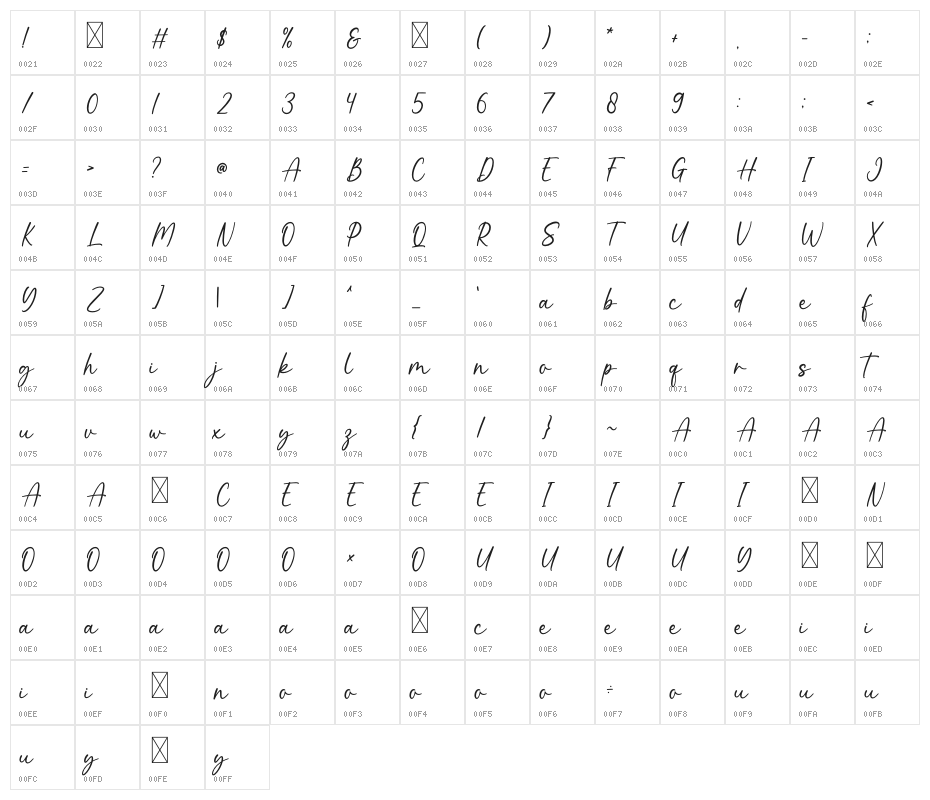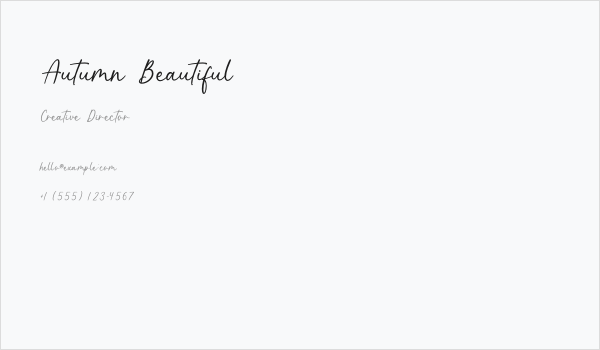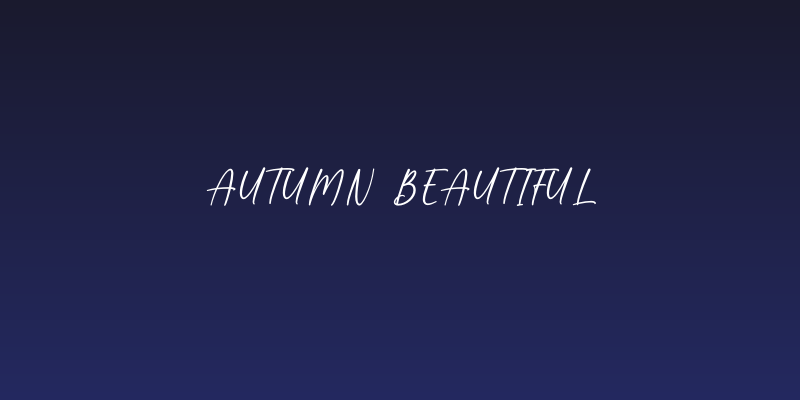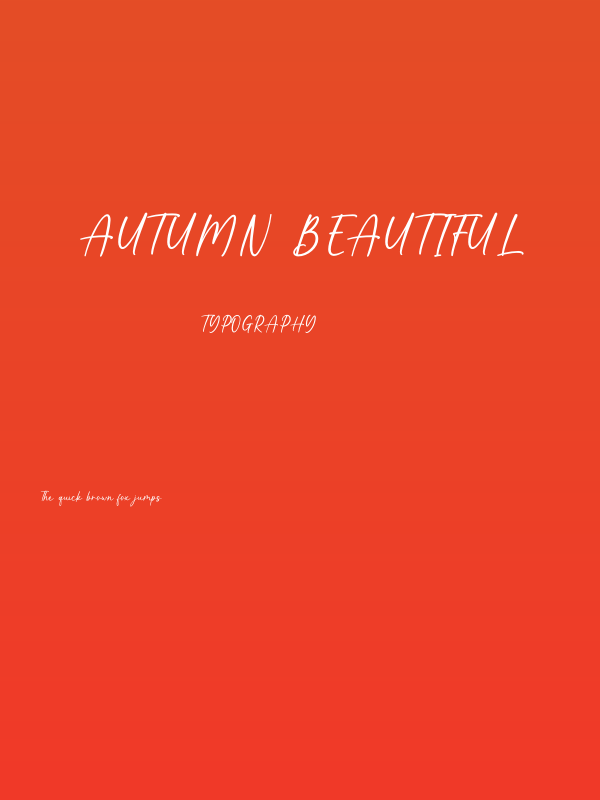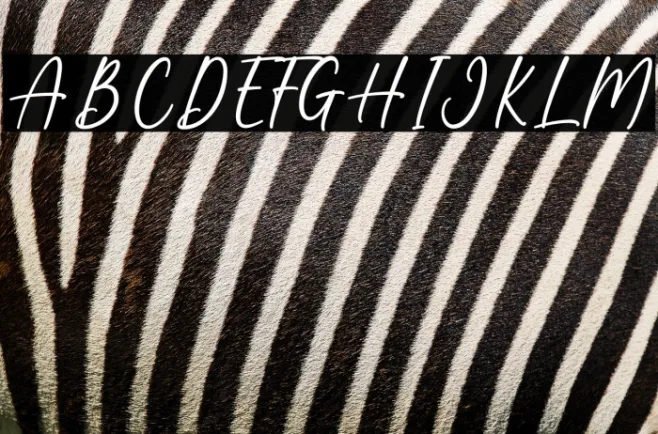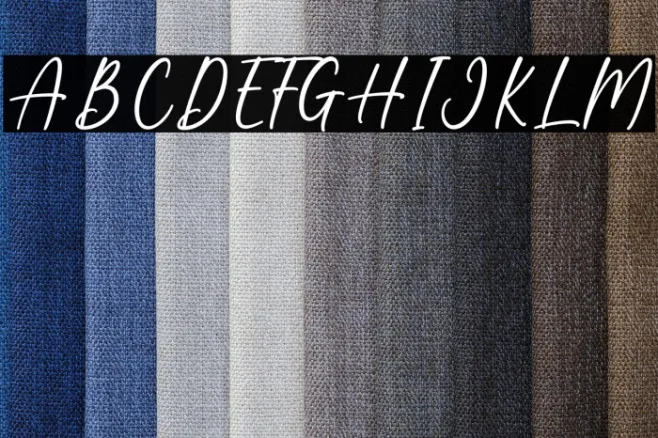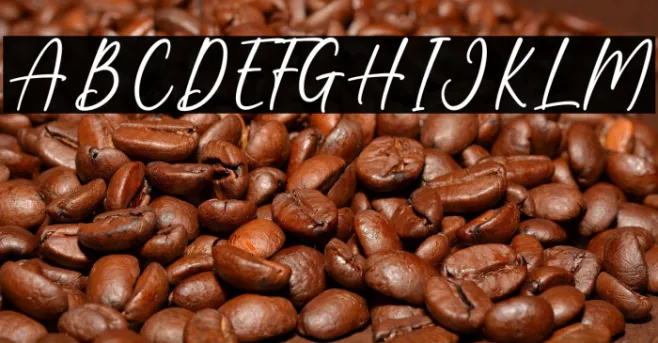
Autumn Beautiful Font
Autumn Beautiful Description
This font exudes a casual and elegant handwritten style, characterized by smooth, flowing lines and a slightly slanted orientation. The uppercase letters are tall and slender, with a graceful curve that adds a touch of sophistication. The lowercase letters maintain a consistent flow, enhancing readability while preserving the handwritten charm. Numbers are clean and well-proportioned, complementing the overall aesthetic. Special characters are thoughtfully designed, ensuring they blend seamlessly with the alphabet. This font's organic feel makes it versatile for various design applications.
| Proposed Projects | Ideal for wedding invitations, greeting cards, personal branding, and lifestyle blogs. |